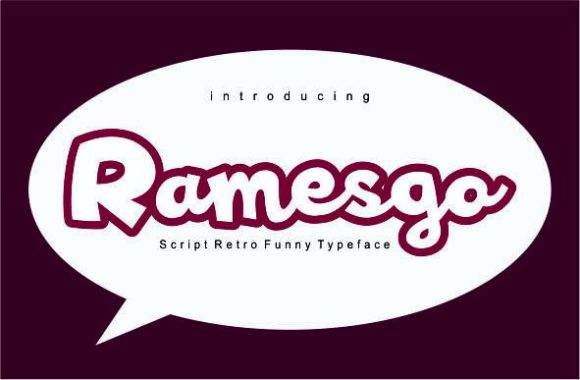
Unleash the Power of Ramesgo: A Font that Commands Boldness and Elegance
Step into the realm of typography and discover the Ramesgo display font, a masterpiece that oozes boldness and sophistication. With its chunky, extended characters, Ramesgo exudes an air of authority and uniqueness, making it the ultimate choice for those seeking a font that stands out from the crowd.
Immerse yourself in a world where design and creativity collide. Ramesgo, hailing from the esteemed Niznaz Graphic Studio, is a font that captivates and commands attention. Its distinctive features make it ideally suited for a wide range of creative endeavors, from crafting eye-catching logos and branding elements to designing packaging that leaves a lasting impression.
Ramesgo's bold personality shines through in every letter, demanding attention and conveying a sense of confidence and strength. Yet, it retains an air of elegance, thanks to its carefully crafted curves and refined details. The result is a font that is both impactful and visually appealing.
Whether you're a seasoned designer or just starting your creative journey, Ramesgo is your perfect companion. Its versatility knows no bounds, making it suitable for a multitude of projects. Let your imagination soar and watch as Ramesgo transforms your designs into works of art.